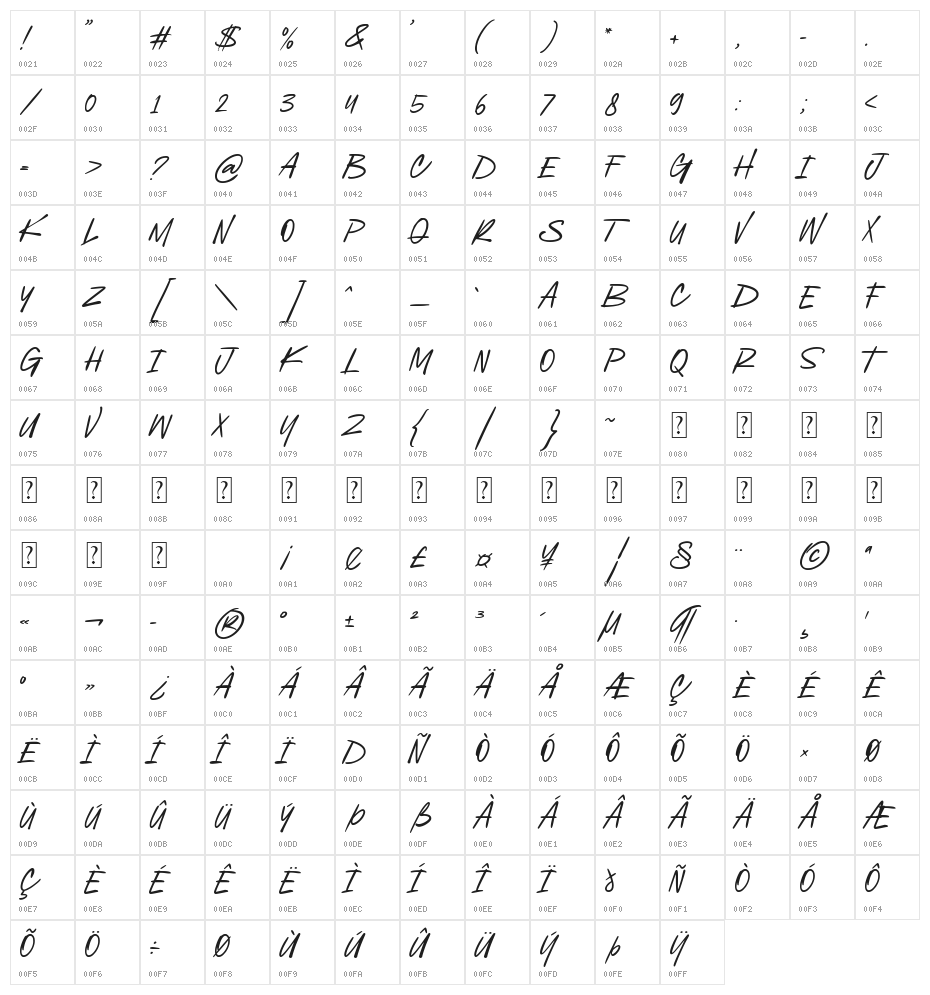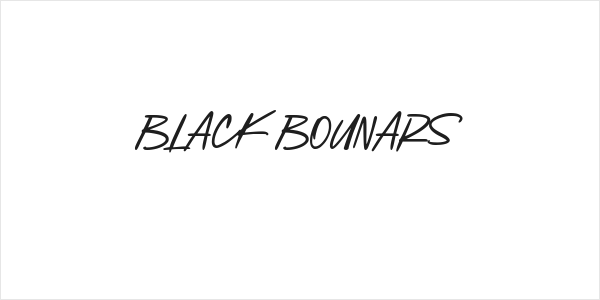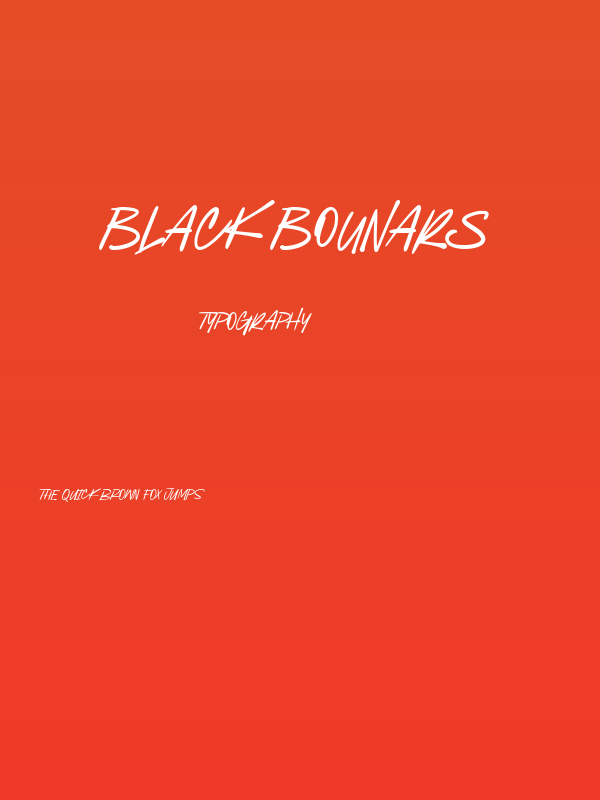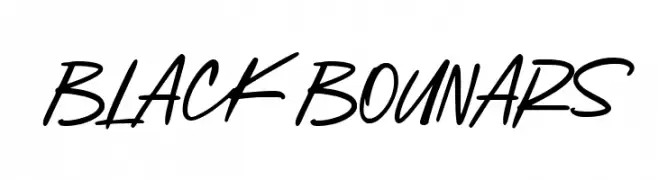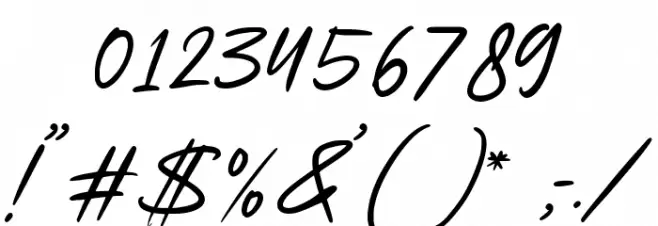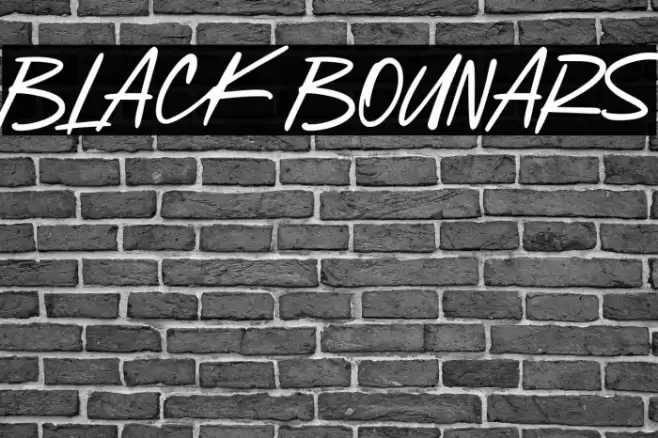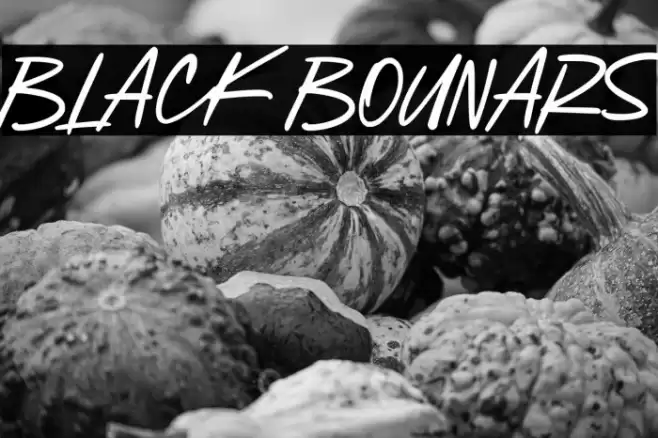
Black Bounars Font
Black Bounars Description
A casual, handwritten script font with a slightly slanted, flowing style, featuring varied stroke widths and a relaxed appearance.
| Overall Style | Casual, Handwritten |
| Use Case | Personal notes, invitations, greeting cards, branding for creative or informal products. |